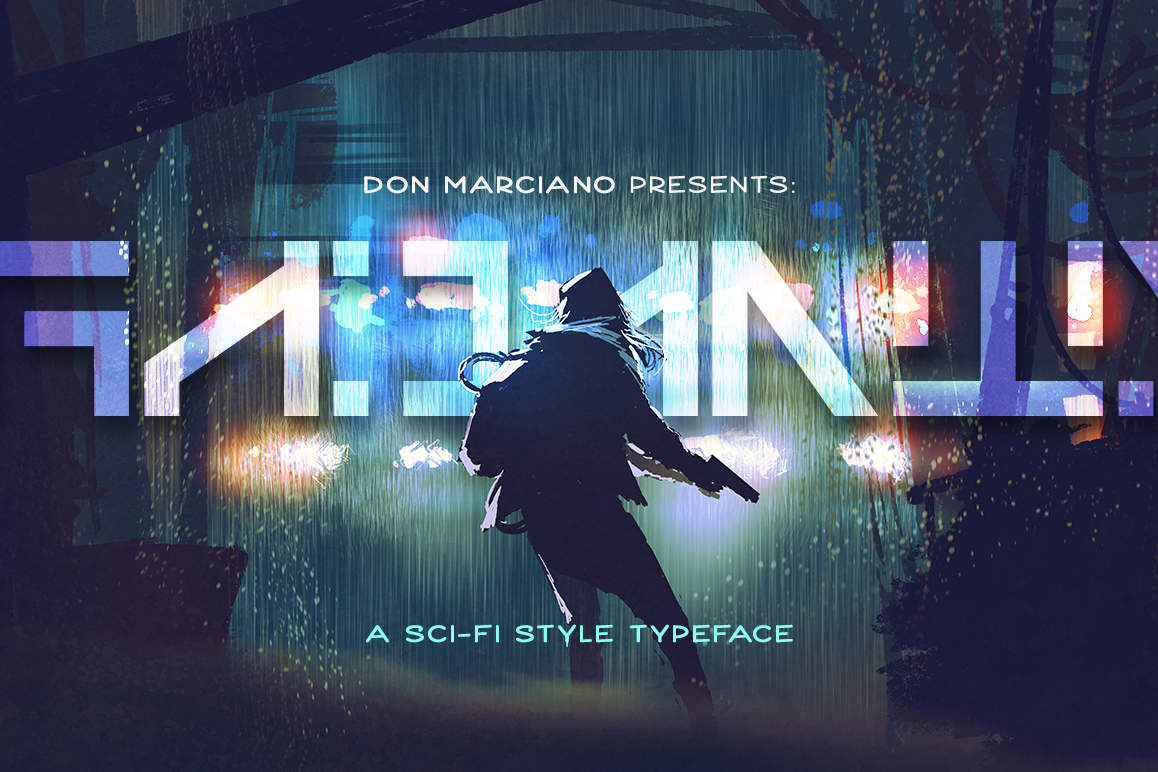
Galactico - Scifi
Galactico-Basic
Galactico is a Sci-fi inspired font, a concept born from a comic development design, rooted in the idea of an existing alien race with super advance technology that come to earth uninvited, and tries to take all its resources; from the unknown regions of deep space comes a modern, clean and simple typeface that, understanding it can mean the difference between life or death. A .OTF file format with a total count of 215 glyphs, an all caps font with no variants that includes all numbers and punctuation. Enjoy!